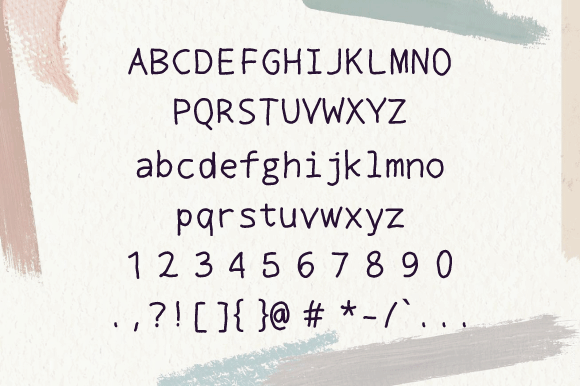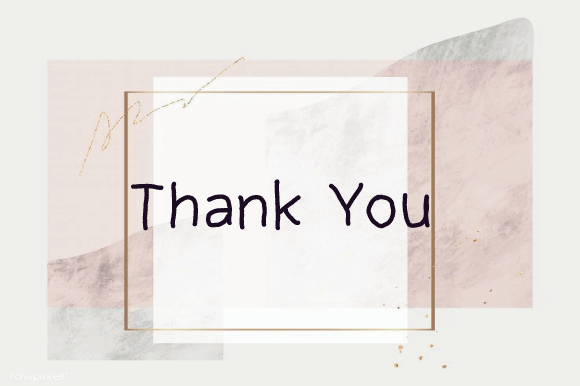
Plain Font
About Plain Font
Pain embodies fun, quirkiness and authenticity. This enchanting handwritten font will turn any creative idea into a true standout. Get creative with its unique feel, and use it to brighten up any crafting project!